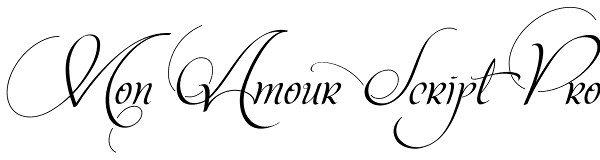
Mon Amour Script
Mainly for invitations; Mon Amour Script Pro, is an Open-Type font, which will delight you. It has the alternate, swash and ligature functions. Check out the gallery! it is waiting for you to explore this wonderful creation!